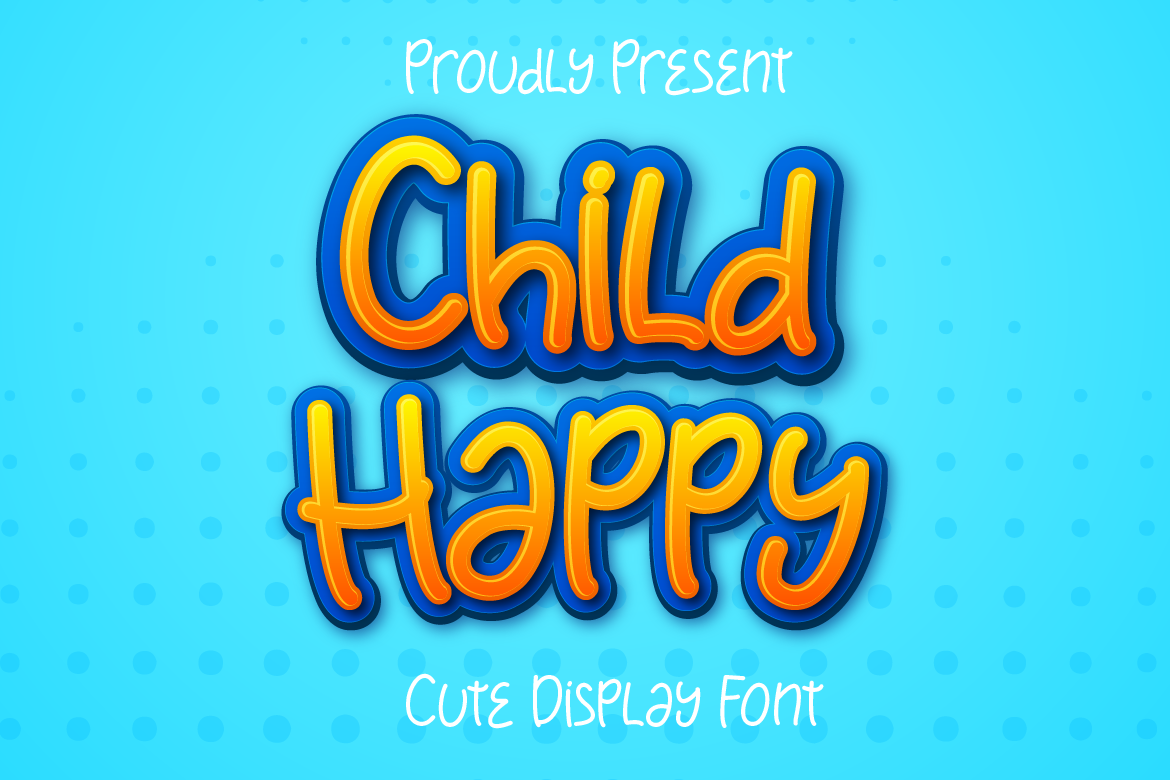
Child Happy Display Font Kids
Child Happy is a delightful display font. It embodies playfulness and authenticity and is perfect for children themed designs, especially when combined with bright colors.